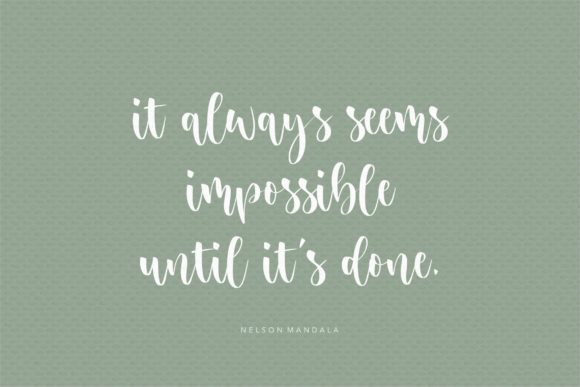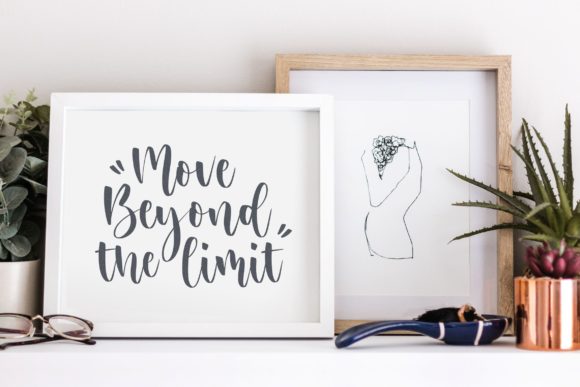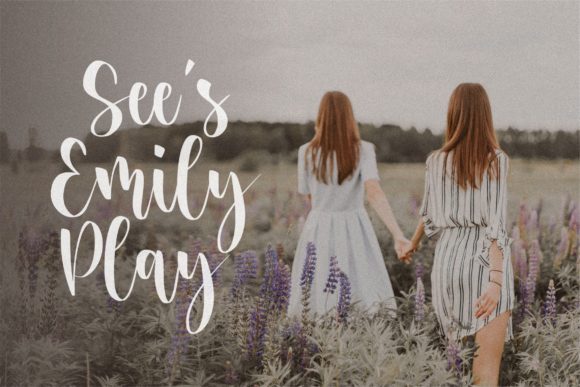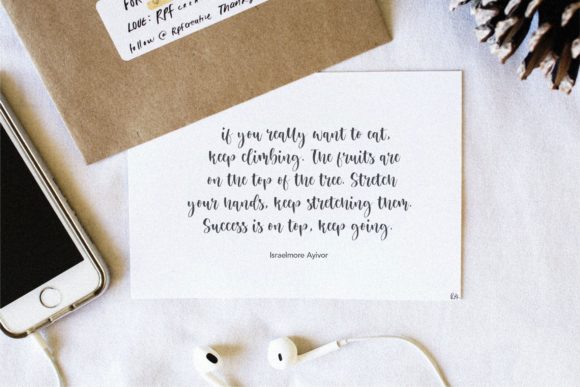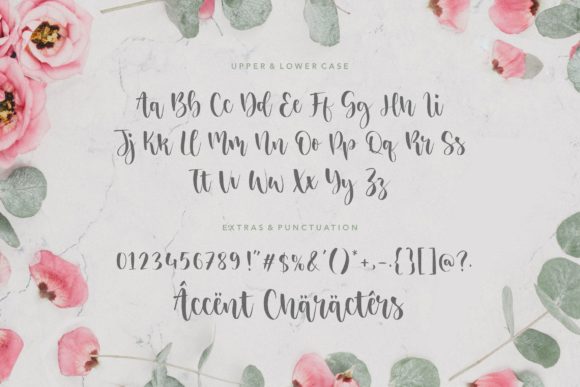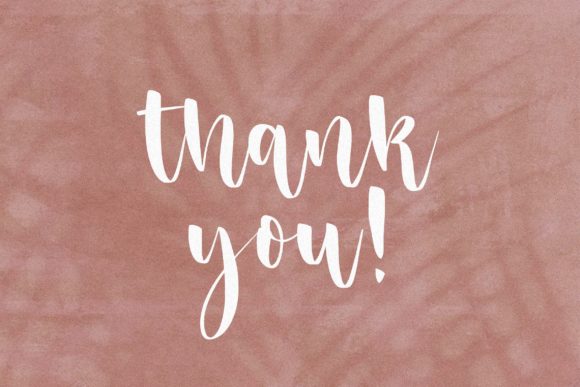
Introduction to Sisterhood Font Font
Fonts play a crucial role in design, and the Sisterhood Font font is a typeface that brings both character and versatility to any project. Whether you’re working on a branding project, a website, or a print design, the Sisterhood Font font offers a unique style that can elevate your work.
Sisterhood is an elegant and beautiful handwritten font.
Use it for any design projects that require a charming appearance .
Key Features of Sisterhood Font Font
Why Choose Sisterhood Font Font?
The Sisterhood Font font is more than just a typeface – it’s a design tool that helps you communicate your message with style and clarity. Its unique character set and versatile design make it suitable for a wide range of applications, from elegant invitations to bold headlines.
With its carefully crafted letterforms and balanced proportions, the Sisterhood Font font ensures readability and visual appeal across all mediums.
What makes Sisterhood Font font special?
The Sisterhood Font font stands out with its unique design, exceptional readability, and versatility across various design applications.